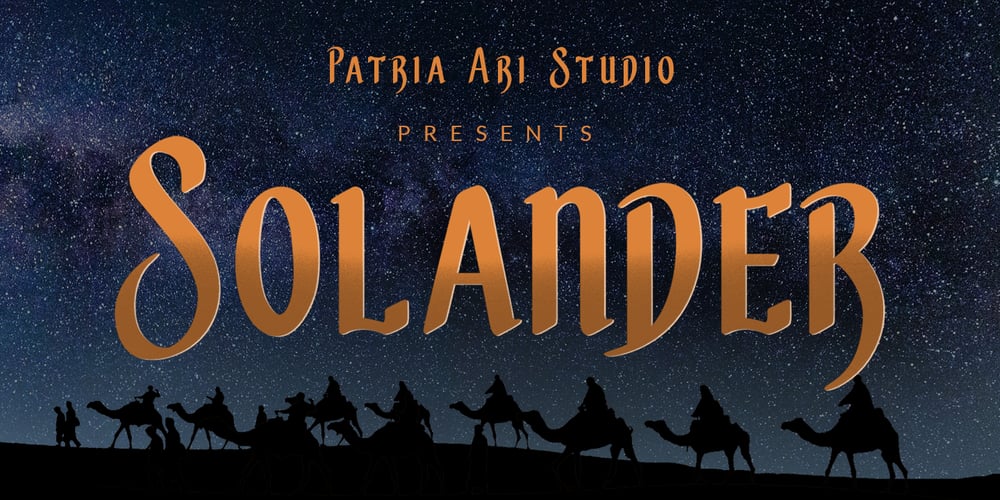
Solander Font Family was designed by Patria Ari Wijonarko and published by Patria Ari. Solander contains 2 styles and family package options. Solander is as sharp display typeface inspired from middle east movies. With small caps, this font suit for movie posters, cinema, fantasy movies, etc.